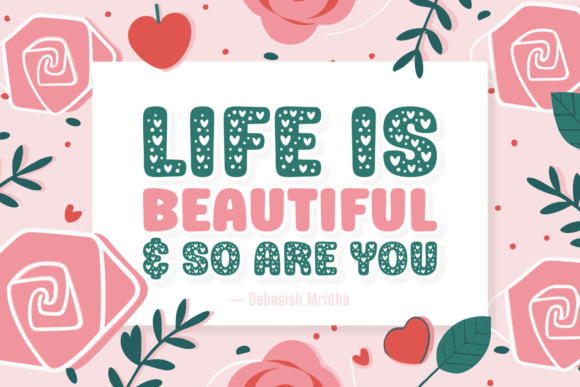
Introduction to Hope Dots Font
Have you ever stumbled upon a font that makes you feel like you’ve discovered a hidden treasure? That’s exactly what happened to me when I came across the Hope Dots Font. I was working on a creative project, designing a wedding invitation for a close friend, and I was struggling to find the perfect font to convey the love and joy of the occasion. That’s when I chanced upon Hope Dots Font, and it was love at first sight!
The Hope Dots Font is a stunning decorative typeface that exudes elegance and whimsy. Its intricate heart details and delicate strokes make it a valuable resource for designers looking to add a touch of romance and playfulness to their designs. With its high-quality design and transparent background, this font is perfect for free download and use in various creative projects. Whether you’re working on a personal or commercial project, the Hope Dots Font is sure to add a touch of beauty and warmth to your design composition.
Key Features of Hope Dots Font
- Unique, hand-drawn style with a transparent background for easy customization
- Perfect for designers looking for a unique and eye-catching font for their next project
- Supports various languages and is suitable for a wide range of creative projects, from logos to packaging designs
Honest Review: Hope Dots Font
I recently had the chance to play around with the Hope Dots Font, and I must say it’s been a delightful experience. This free download has been a great addition to my design toolbox, offering a unique and whimsical touch to my creative projects.
One of the standout features of the Hope Dots Font is its high quality and versatility. The font is available in a range of sizes and styles, making it perfect for a variety of design applications. I’ve used it for everything from social media graphics to print materials, and it always adds a nice touch of personality to my work.
- May not be suitable for formal or professional projects, due to its playful and whimsical nature
Overall, I’m thoroughly impressed with the Hope Dots Font. It’s a fun and creative resource that’s perfect for designers looking to add a little personality to their work. Whether you’re working on a social media campaign or a print project, this font is definitely worth checking out.
Designing with Hope Dots Font
Hope Dots Font is a high-quality design resource ideal for creative projects that require a unique and playful touch. The font features a transparent background, making it easy to combine with other design elements.